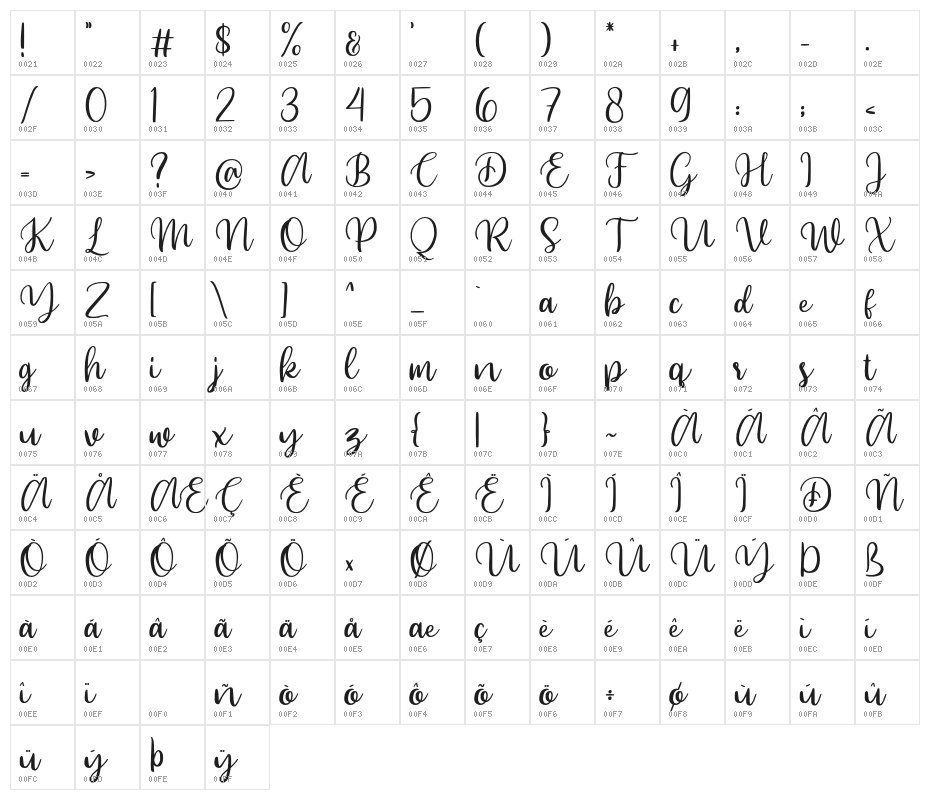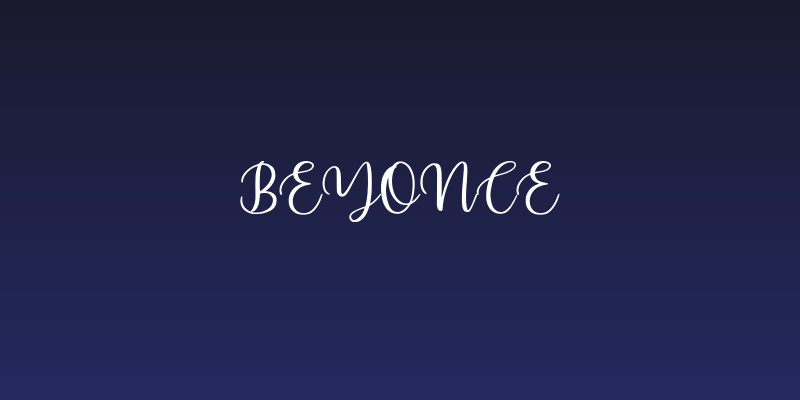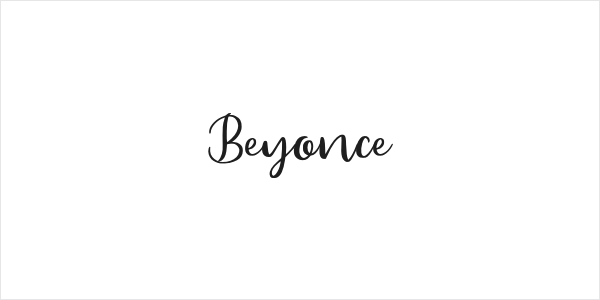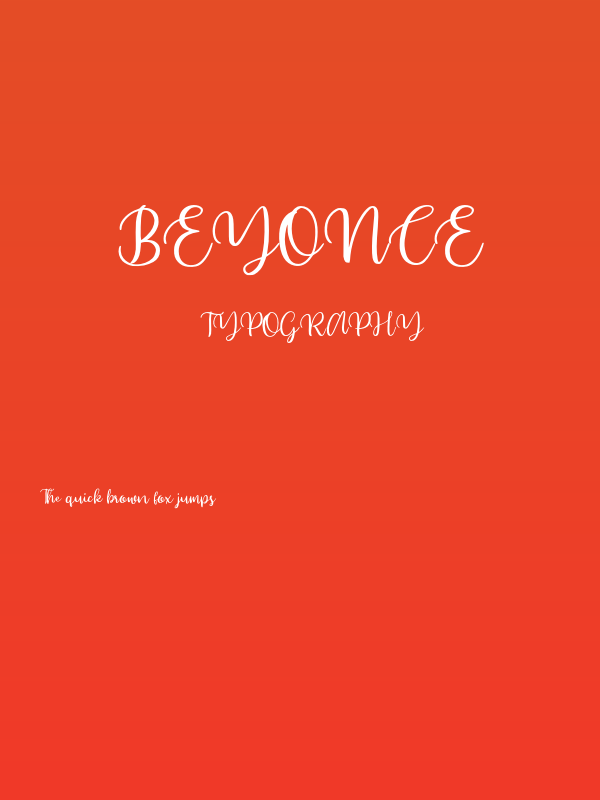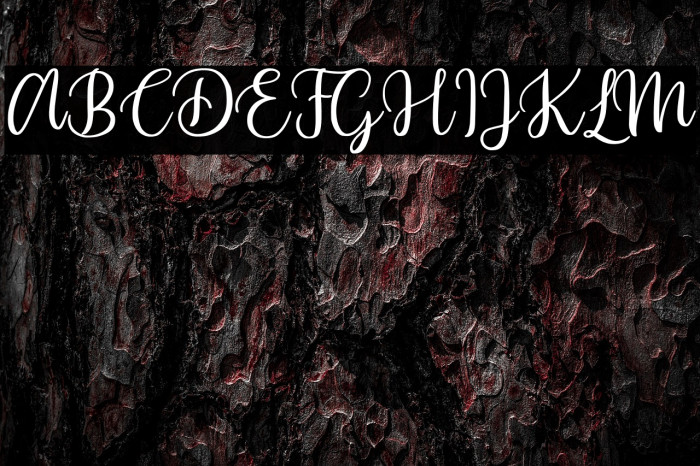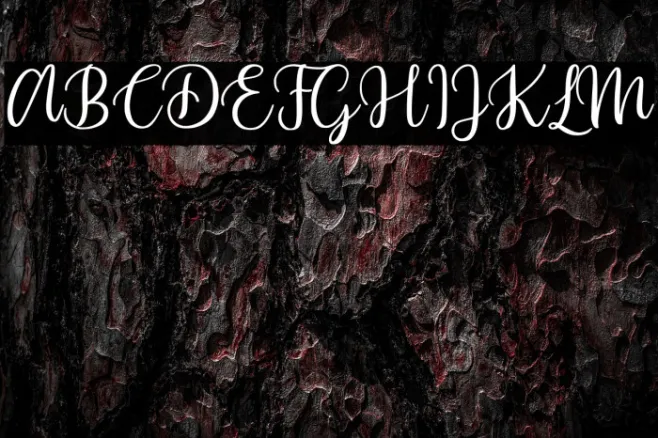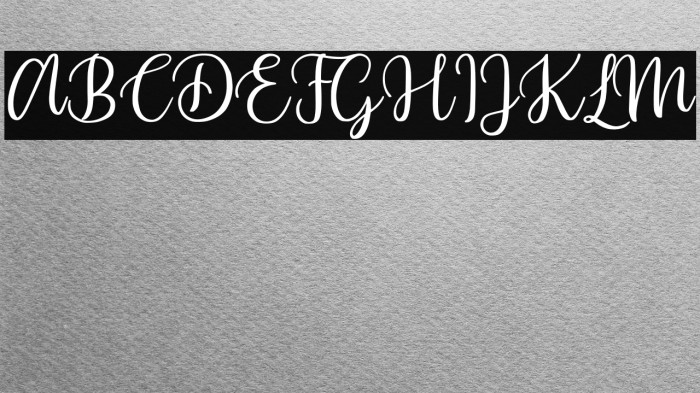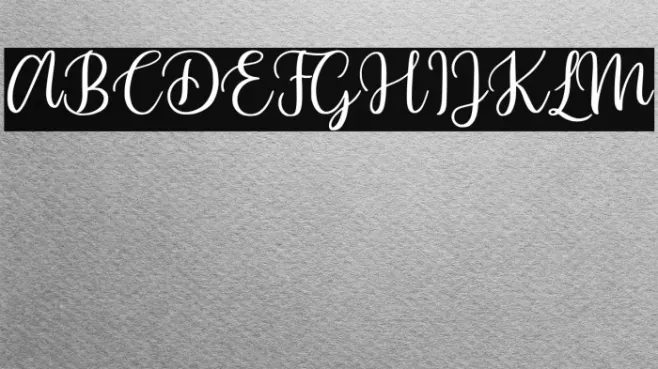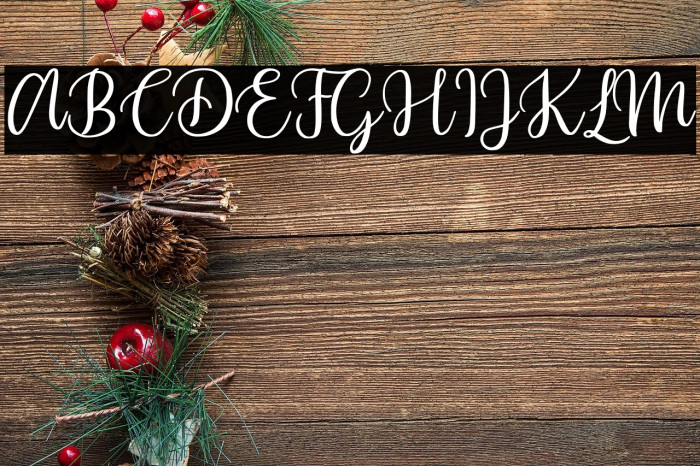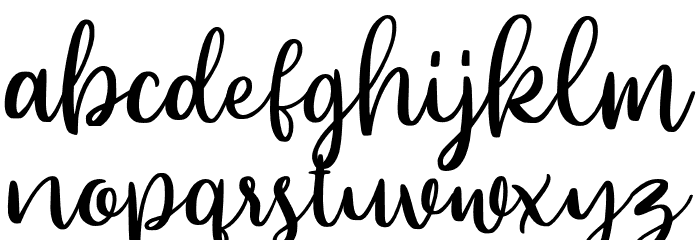
Beyonce Font
Beyonce Description
This font features a lively and expressive script style, characterized by its fluid and connected letterforms. The uppercase letters exhibit a graceful, flowing quality with elegant loops and curves, while the lowercase letters maintain a consistent rhythm and smooth transitions. The numerals are dynamic and slightly playful, complementing the overall aesthetic. Special characters are thoughtfully designed to match the script's energetic feel. This font is perfect for adding a personal touch to any project, offering a sense of warmth and creativity.